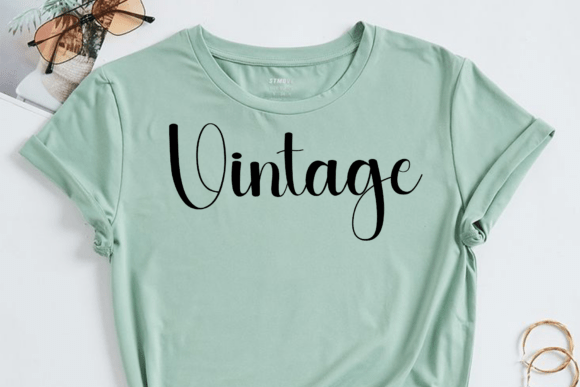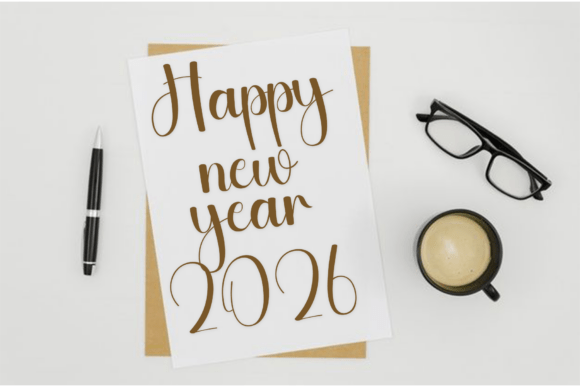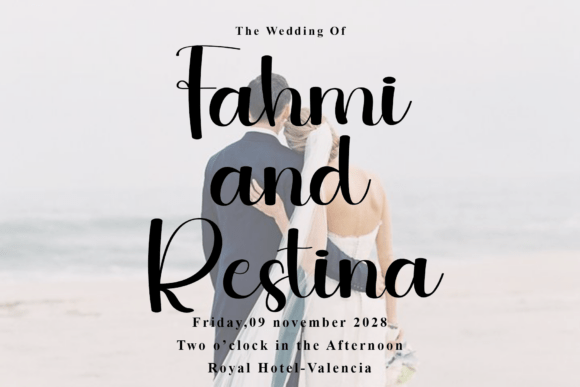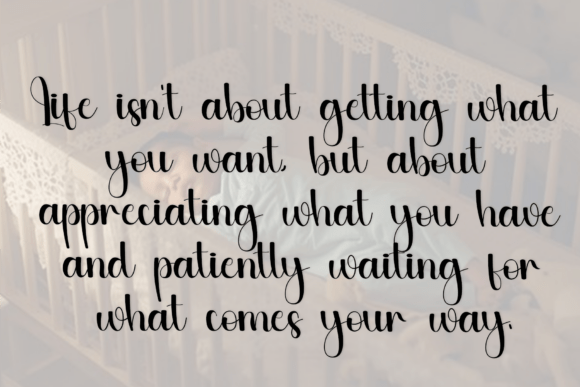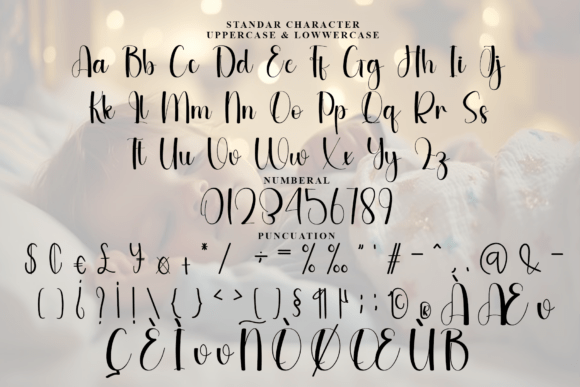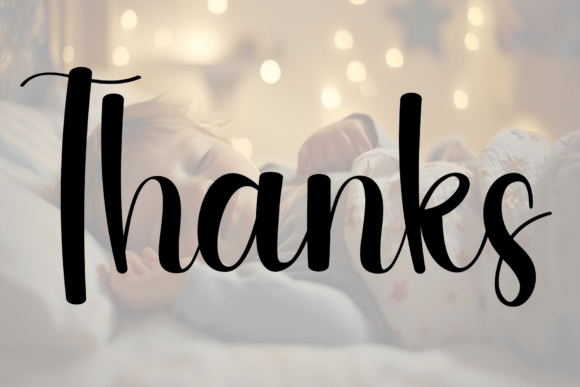
Babynight Font: Elevate Your Designs with a Stylish Handwritten Touch
In the world of typography, a well-chosen font can make all the difference in elevating your design from ordinary to extraordinary. If you’re a designer or crafter looking for a stylish and approachable font to add a personal touch to your projects, look no further than Babynight. This beautiful handwritten font combines organic charm with a strong typographic presence, making it the perfect choice for a wide range of design applications.
The Characteristics of Babynight Font
Babynight is a stunning example of a handwritten font that exudes warmth and friendliness. Its thick, solid strokes have a distinct “bouncy” rhythm that gives it a lively and energetic feel. This unique characteristic makes Babynight stand out from other fonts, adding a touch of personality to any design. The font’s well-balanced proportions ensure that it remains impactful even in busy designs, making it an excellent choice for designers who want to create visually striking graphics.
Part of the “Unique and Professional” Collection
Babynight is part of the “Unique and Professional” collection, a curated selection of fonts designed to help designers create distinctive and memorable brands. This collection is perfect for businesses and individuals who want to stand out from the crowd and establish a strong visual identity. With Babynight, you can add a touch of sophistication and elegance to your designs while maintaining a friendly and approachable tone.
Ideal Applications for Babynight Font
Babynight’s versatility makes it suitable for a wide range of design applications. Here are some ideal uses for this beautiful font:
- Outdoor Lifestyle Branding: Babynight’s organic charm and adventurous feel make it perfect for outdoor lifestyle brands, such as hiking gear, camping equipment, or eco-friendly products.
- Organic Product Packaging: The font’s natural, handmade look is ideal for organic product packaging, adding a touch of warmth and personality to your brand.
- Travel-Themed Graphics: Babynight’s “bouncy” rhythm and energetic feel make it perfect for travel-themed graphics, such as brochures, posters, or social media graphics.
- Rustic Event Invitations: The font’s rustic charm and handmade look make it an excellent choice for rustic event invitations, such as weddings, festivals, or outdoor gatherings.
Why Choose Babynight Font?
With so many fonts available, why choose Babynight? Here are just a few reasons why designers and crafters love this stylish handwritten font:
- Unique Character: Babynight’s distinct “bouncy” rhythm and organic charm give it a unique character that sets it apart from other fonts.
- Versatility: The font’s versatility makes it suitable for a wide range of design applications, from outdoor lifestyle branding to rustic event invitations.
- Well-Balanced Proportions: Babynight’s well-balanced proportions ensure that it remains impactful even in busy designs, making it an excellent choice for designers who want to create visually striking graphics.
- Easy to Read: The font’s clear and legible design makes it easy to read, even in smaller sizes.
In conclusion, Babynight is a stunning handwritten font that combines organic charm with a strong typographic presence. Its unique character, versatility, and well-balanced proportions make it an excellent choice for designers and crafters looking to add a personal touch to their projects. Whether you’re creating outdoor lifestyle branding, organic product packaging, travel-themed graphics, or rustic event invitations, Babynight is the perfect font to elevate your designs and make them stand out from the crowd.